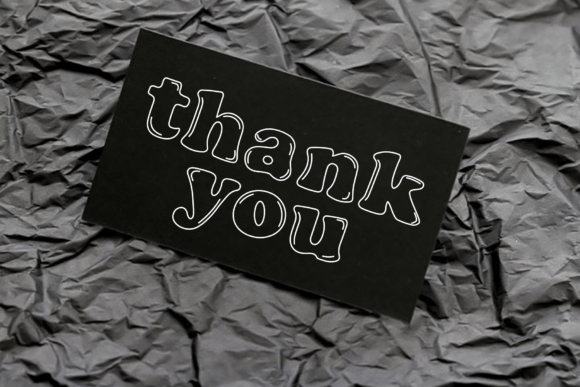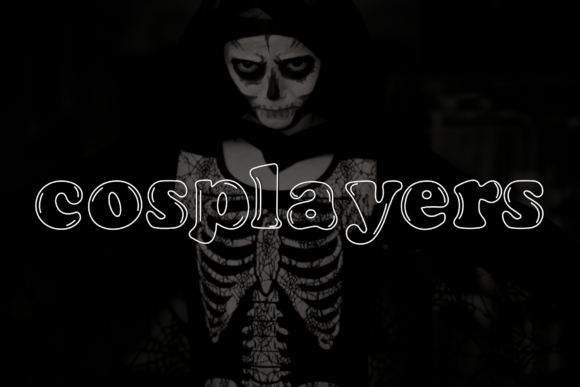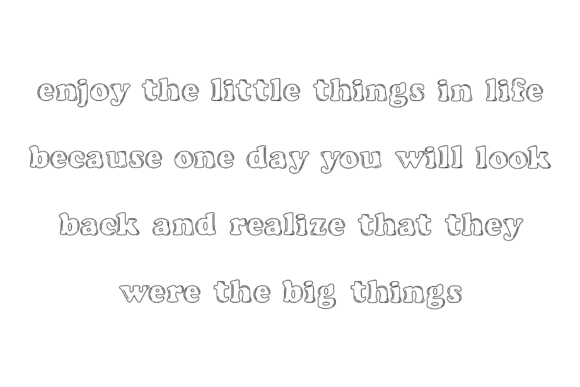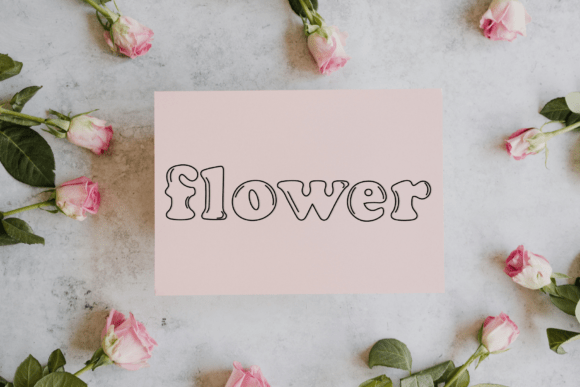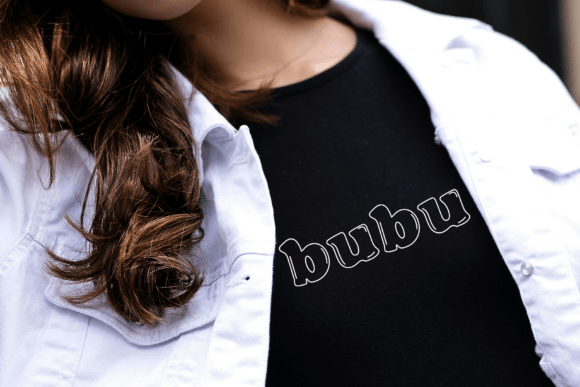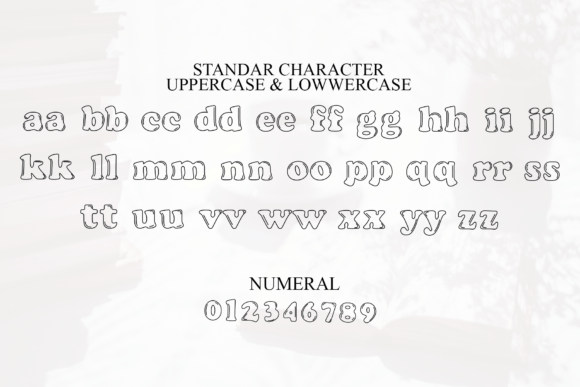
The Magic of Bubble Original Font: A Festive Holiday Companion
A Festive and Merry Typeface
Bubble Original Font is a decorative typeface that embodies the whimsy and enchantment of the holiday season. With its intricate elements and playful flair, this font is perfect for adding a touch of magic to your designs. Whether you’re working on greeting cards, gift tags, or holiday-themed projects, Bubble Original Font brings a cheerful and nostalgic ambiance to your words.
What I Love About Bubble Original Font
- ✅ Perfect for holiday-themed projects: This font is specifically designed to capture the spirit of the holiday season, making it an excellent choice for Christmas cards, Halloween decorations, or Easter egg designs.
- 🎉 Whimsical and decorative elements: The font’s playful flair adds a touch of personality to your designs, making them stand out from the crowd.
While Bubble Original Font is an excellent choice for holiday-themed projects, there are a few things to keep in mind:
- ⚠️ May not be suitable for body text: Due to its decorative nature, Bubble Original Font is best used for headlines, titles, or short paragraphs.
The Story Behind Bubble Original Font
Bubble Original Font was designed by a team of typographers who wanted to capture the magic of the holiday season in a single font. Inspired by traditional holiday decorations and festive typography, they created a font that would bring joy and whimsy to designers and crafters alike.
| What is Bubble Original Font? | Bubble Original Font is a festive and merry typeface designed specifically for holiday-themed projects. |